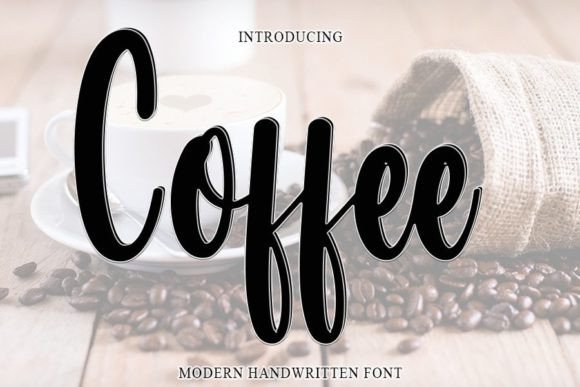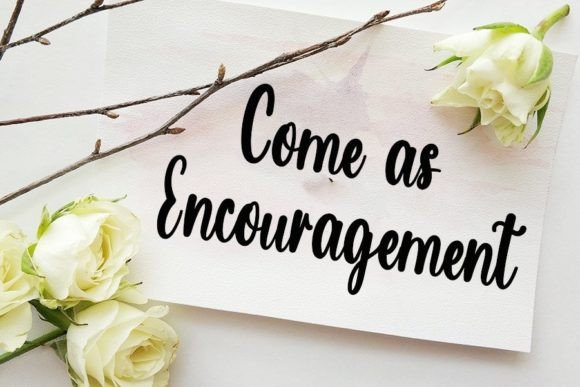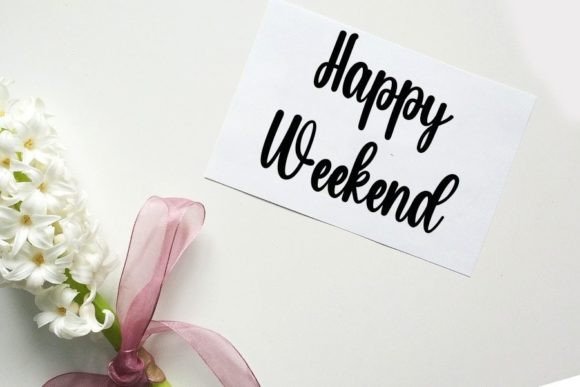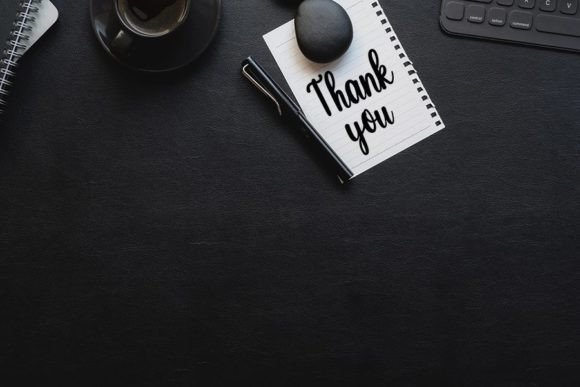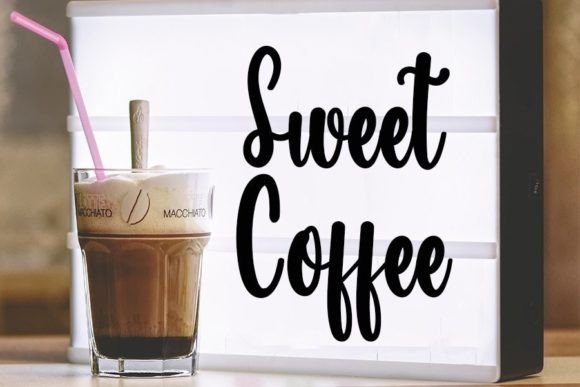
Coffee Font
About Coffee Font
Coffee is a neat and beautiful handwritten font distinguished by its elegant touch, making it perfect for a variety of creative projects. Its incredibly distinct and timeless style invites you to fall in love with its aesthetic and use it to craft spectacular designs.
The neat and beautiful qualities of Coffee make it a versatile option for a wide range of applications. Whether used for branding, invitations, posters, or other design endeavors, the font adds a touch of sophistication with its elegant script.
For creative projects, Coffee ensures a visually distinct and timeless experience. Its handwritten style brings a sense of authenticity to your designs, making them stand out with a touch of elegance.
In branding, Coffee contributes to a refined and sophisticated identity. Its elegant touch adds a sense of class to logos, packaging, and promotional materials, ensuring that your brand communicates a timeless and distinctive style.
The versatility of Coffee allows it to adapt seamlessly to various design contexts, making it suitable for both formal and creative projects. Its timeless style ensures that it remains a valuable asset in your creative toolkit.
In conclusion, Coffee is more than just a font; it’s a creative tool meticulously crafted to bring an elegant and timeless touch to your designs. Whether used for formal or expressive projects, this handwritten font ensures that your creations exude sophistication and style.